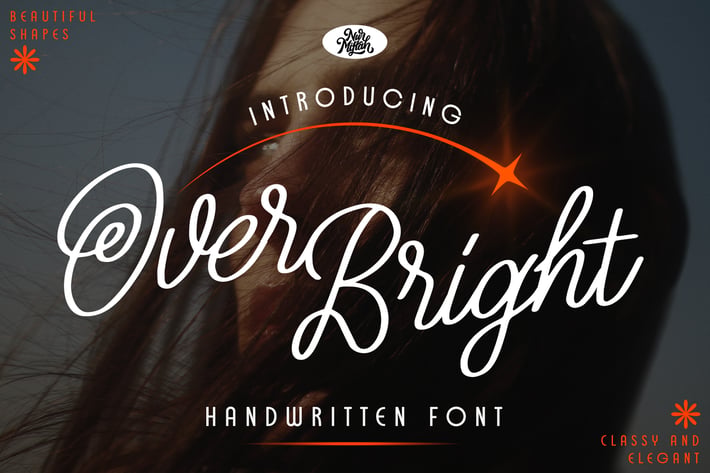
Over Bright Handwritten Font
Over Bright Font can be used for various media like special events,
invitation, packaging, poster, wedding, movie titles, book titles,
social media, logos, branding, and others.
+ Stylistic Set
+ Ligature
+ Alternates